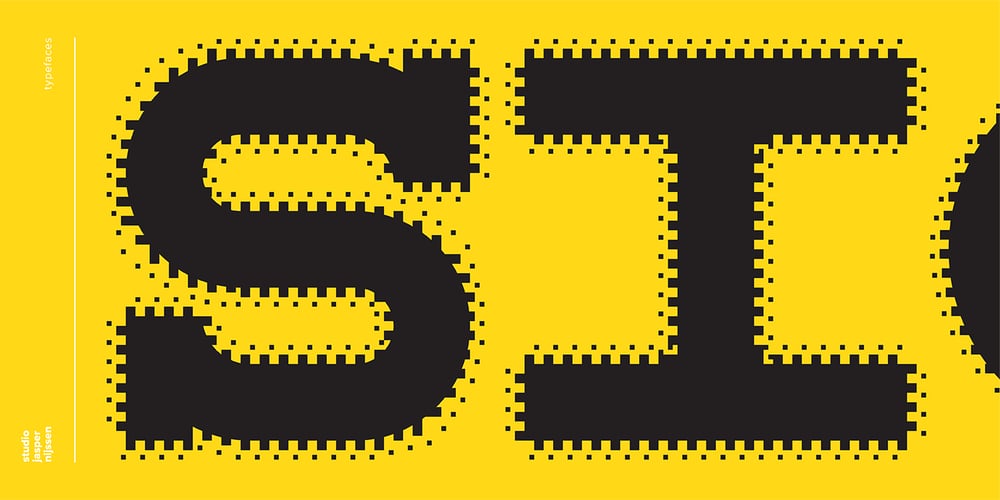
WBP Sight Font Family was designed by Jasper Nijssen and published by Studio Jasper Nijssen. WBP Sight contains 1 styles and family package options. This font is inspired by posters opticians use to test a person’s eyesight. Those letters are always blurred or distorted when they’re beheld. That’s awful for any creation. So why not rig the game from the start and blur the whole font?! WBP Sight is most defiantly a display font, so play to it’s strengths. Use it in headings, on banners or on posters. Especially on those to test a person’s eyesight…